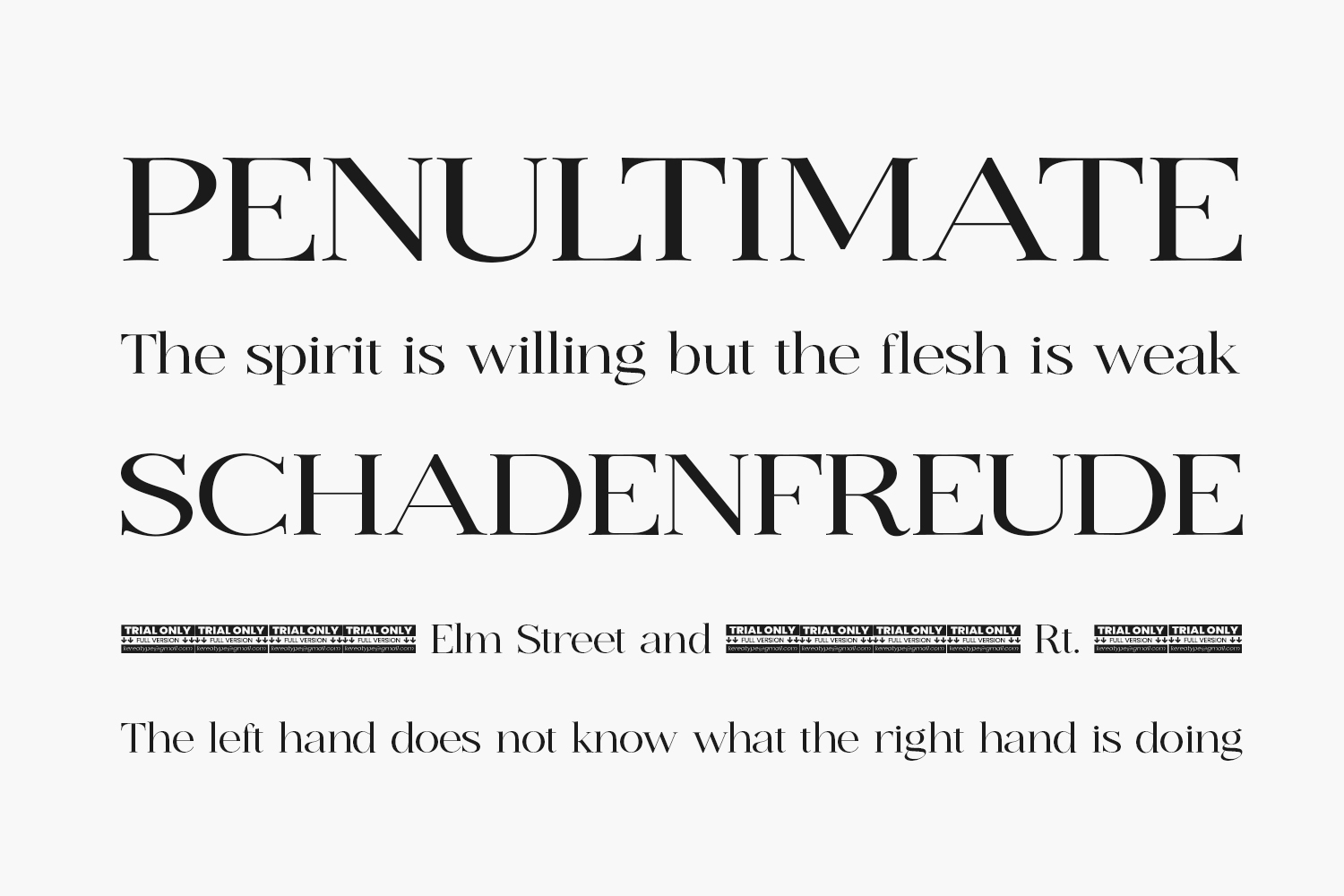
Unveiling the Ethereal Free Font Family, featuring a range of weights for added versatility. This font exudes fashion, modernity, and elegance, complemented by enticingly stylish embellishments. Tailored for branding and logo design, it promises to deliver sophisticated, elegant, and unquestionably distinctive logos that capture attention and leave a lasting impression. Elevate your brand with the allure of the Ethereal. Download the font for free if you need it for personal use or purchase the full version for commercial use.